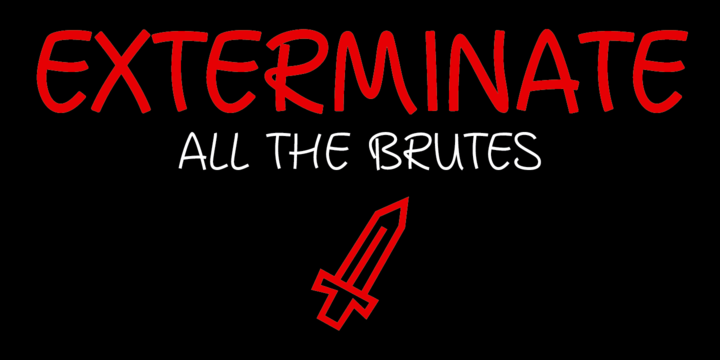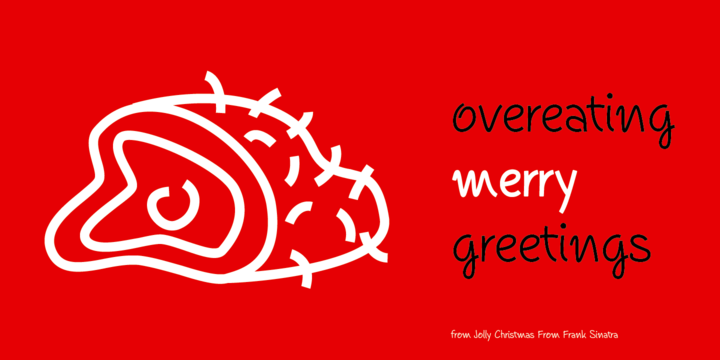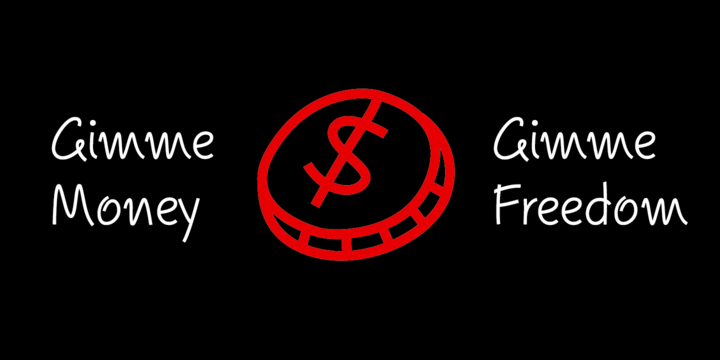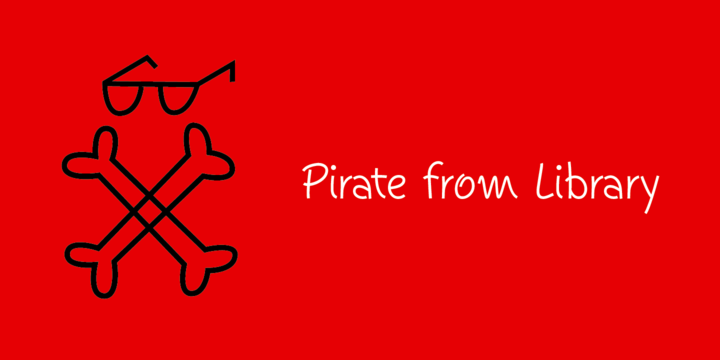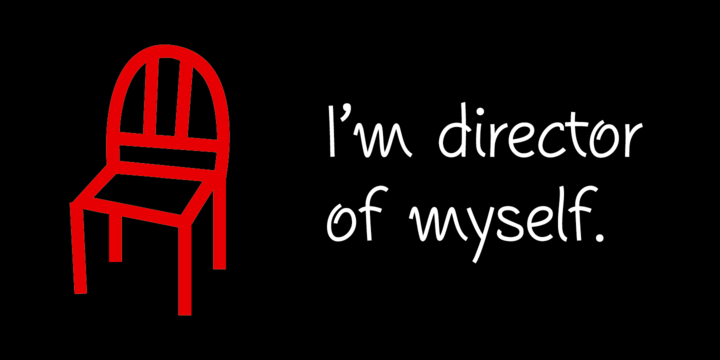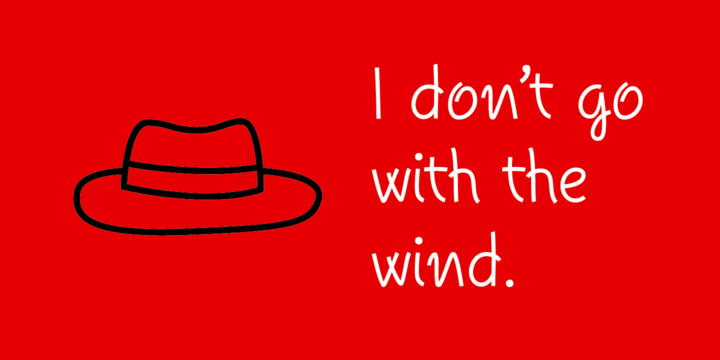
Dusan Script Font: Elevate Your Designs with Elegant Handwriting
Are you looking for a font that can add a touch of elegance and personality to your designs? Look no further than the Dusan Script font family. This beautiful set of handwriting script fonts is designed to capture the natural flow and idiosyncrasies of Dusan’s penmanship, making it perfect for a wide range of creative projects.
The Characteristics of Dusan Script Font
The Dusan Script font family boasts an airy, natural personality that is both elegant and approachable. Its open counters and features make it highly legible, whether you’re using it at small or large sizes. This versatility makes it an excellent choice for designers and crafters who need a font that can adapt to different applications.
Exploring the Dusan Script Family
The Dusan Script Family consists of two fonts: Regular and Bold. This duo offers a fresh handwriting style that can add a personal touch to various materials, including:
- Invitations: Make your invitations stand out with the elegant and cursive Dusan Script font.
- Cards: Add a personal touch to your greeting cards, thank-you cards, and birthday cards.
- Newsletters: Give your newsletters a unique and engaging look with the Dusan Script font.
- Advertisements: Use the Dusan Script font to create eye-catching ads that capture the attention of your target audience.
- Correspondence: Elevate your letters and emails with the elegant and sophisticated Dusan Script font.
Why Choose Dusan Script Font?
So, what makes the Dusan Script font family an excellent choice for designers and crafters? Here are just a few reasons:
- Elegant and sophisticated: The Dusan Script font exudes elegance and sophistication, making it perfect for high-end designs and projects.
- Versatile: With its airy and natural personality, the Dusan Script font can be used in a wide range of applications, from formal invitations to casual social media posts.
- Legible: The open counters and features of the Dusan Script font make it highly legible, even at small sizes.
- Unique: The Dusan Script font has a unique and distinctive style that sets it apart from other script fonts.
Tips for Using Dusan Script Font
To get the most out of the Dusan Script font, here are a few tips to keep in mind:
- Pair it with a sans-serif font: Combine the Dusan Script font with a sans-serif font to create a beautiful contrast and add visual interest to your designs.
- Use it for headings and titles: The Dusan Script font is perfect for headings and titles, where its elegant and cursive style can shine.
- Experiment with colors: Try pairing the Dusan Script font with different colors to create a unique and eye-catching look.
| Font Name | Dusan Script Font |
| Author | Tour De Force |
In conclusion, the Dusan Script font family is a wonderful set of handwriting script fonts that can elevate your designs and add a touch of elegance and personality. With its airy and natural personality, open counters, and features, it’s perfect for a wide range of creative projects. Whether you’re a designer or crafter, the Dusan Script font is an excellent choice for anyone looking to create beautiful and engaging designs.